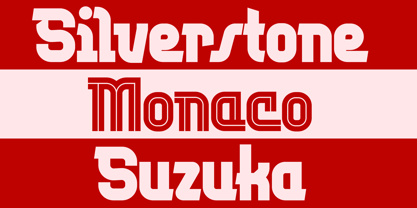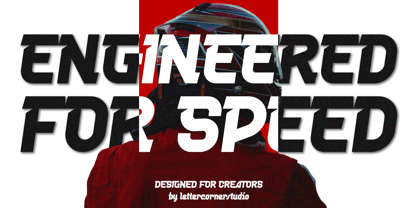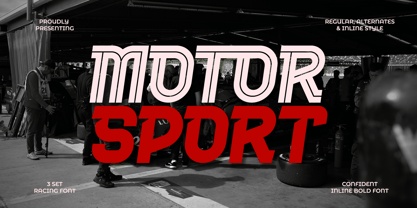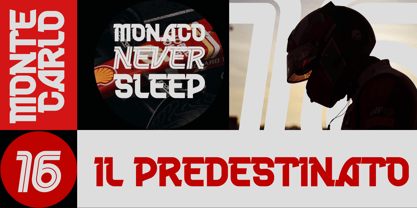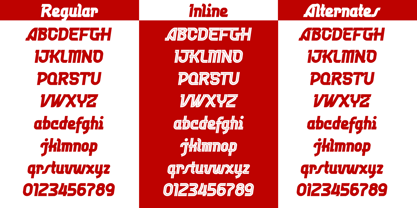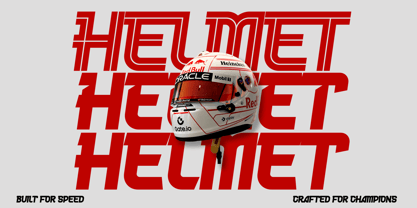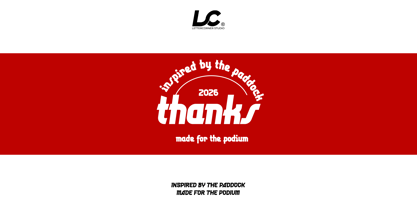
Motorsport
La famille de polices Motorsport a été conçue par Muhammad Afif Ersya et publiée par Mevstory Studio. Motorsport contient 5 styles et options de package familial. En savoir plus sur cette famille
Motorsport is a high-performance display typeface inspired by the adrenaline, precision, and speed of professional motor racing. Designed with sharp angles, aerodynamic curves, and an aggressive forward-leaning stance, it captures the energy of Formula racing, MotoGP, endurance championships, and modern automotive culture.
Every character is engineered to convey movement—even when standing still. The bold proportions and racing-inspired details make Motorsport an ideal choice for projects that demand power, speed, and visual impact.
Whether you're designing for motorsport events, automotive brands, esports, racing teams, sports apparel, posters, packaging, or bold editorial layouts, Motorsport delivers a striking presence that commands attention.
The family includes multiple styles, allowing you to mix solid, italic, inline, and alternate versions to create dynamic and eye-catching typography.
Inspired by the paddock. Made for the podium.